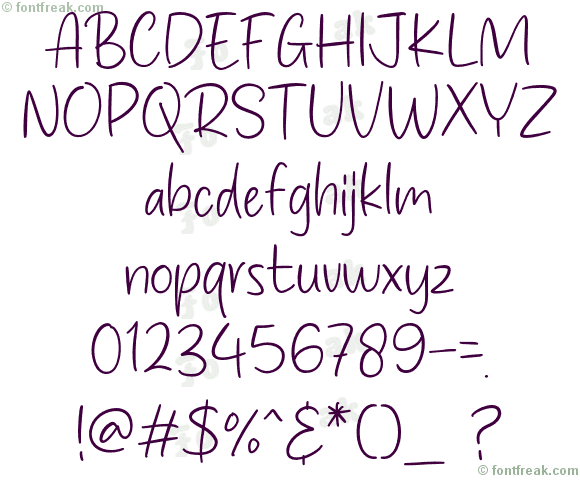
Richard Gerald
About Richard Gerald
The Richard Gerald font by MJType is a captivating handwritten typeface that combines elegance with a touch of modern flair. This font stands out in the script category, featuring fluid strokes and a natural flow that mimics the beauty of genuine handwriting. With its medium stroke weight and gentle contrast, the Richard Gerald font offers legibility without sacrificing style. The letters are well-spaced, allowing for easy reading while maintaining a cohesive look, making it an excellent choice for a variety of design applications.
Ideal for wedding invitations, the Richard Gerald font adds a romantic touch to any event, enhancing the overall aesthetic with its graceful curves. Its charming personality also makes it suitable for restaurant menus, where a warm and inviting atmosphere is essential. Additionally, this font can elevate movie posters, providing a personal touch that draws viewers in. For content creators, using the Richard Gerald font in social media graphics or blog headers can create a unique brand identity that resonates with audiences. Graphic designers will find this font an invaluable addition to their toolkit, especially for projects that require a friendly and approachable vibe.